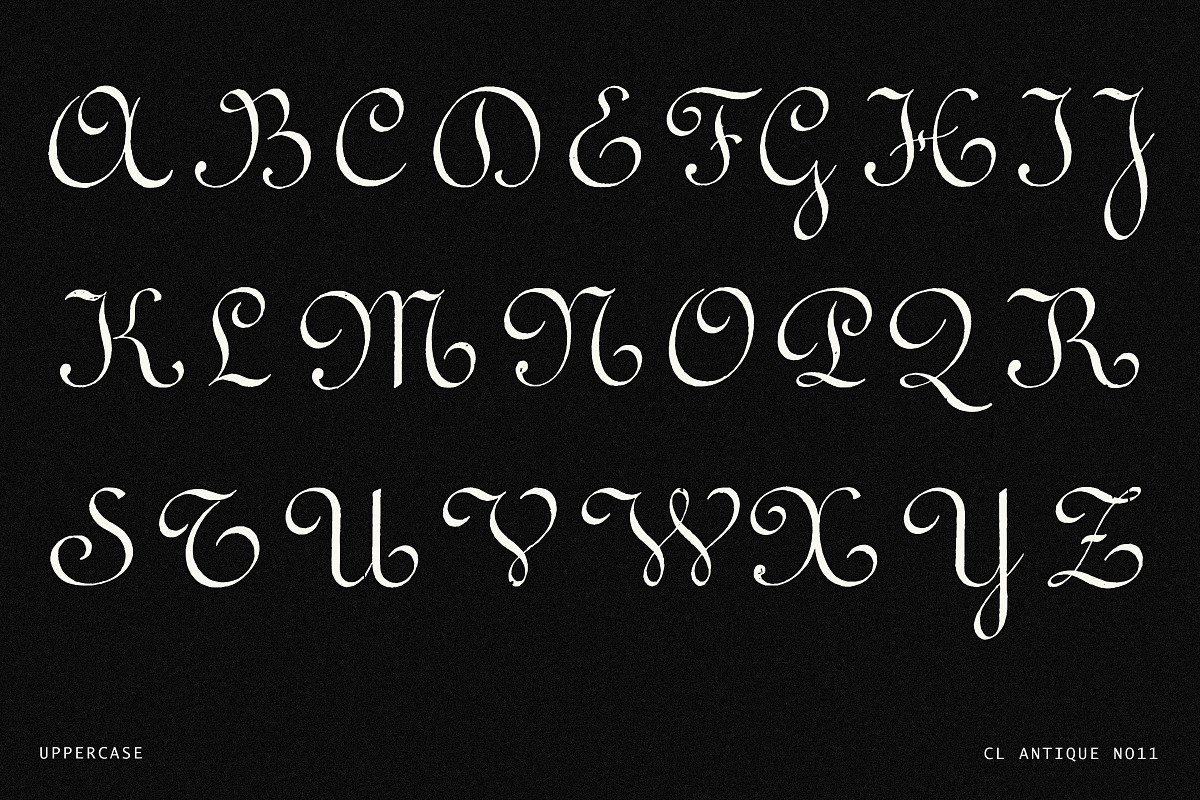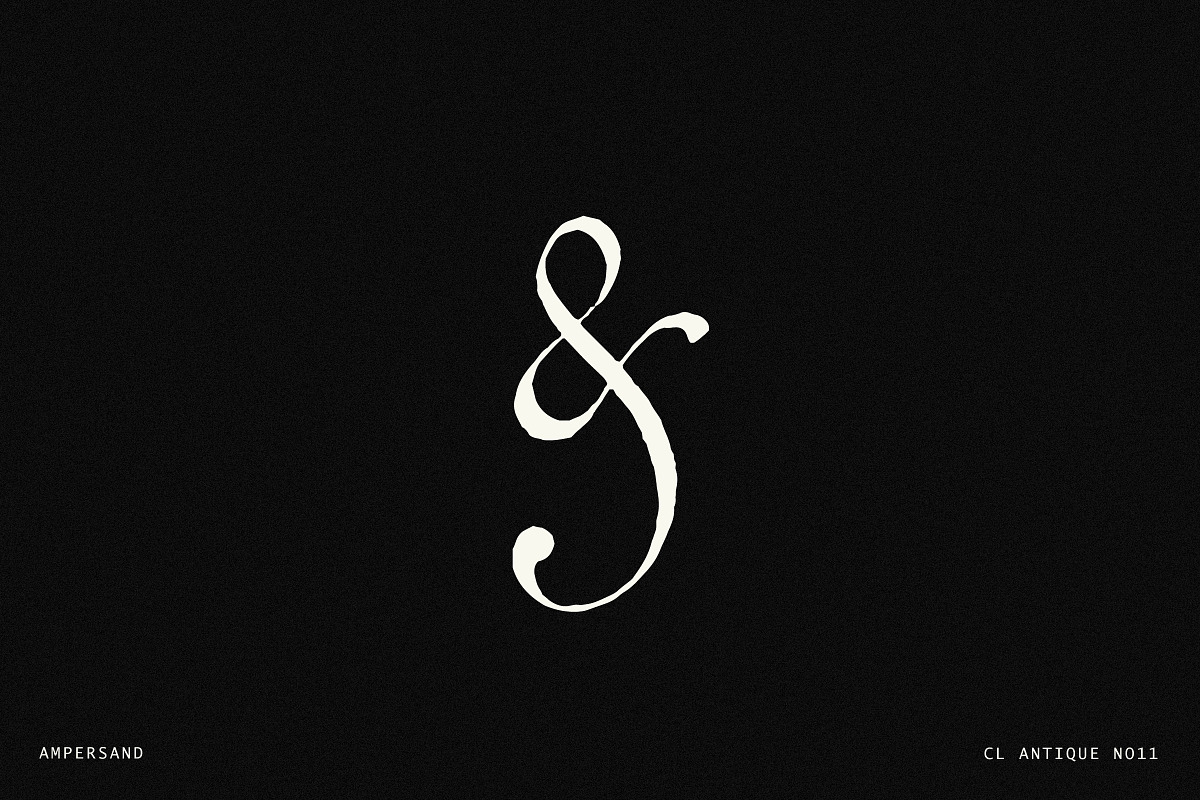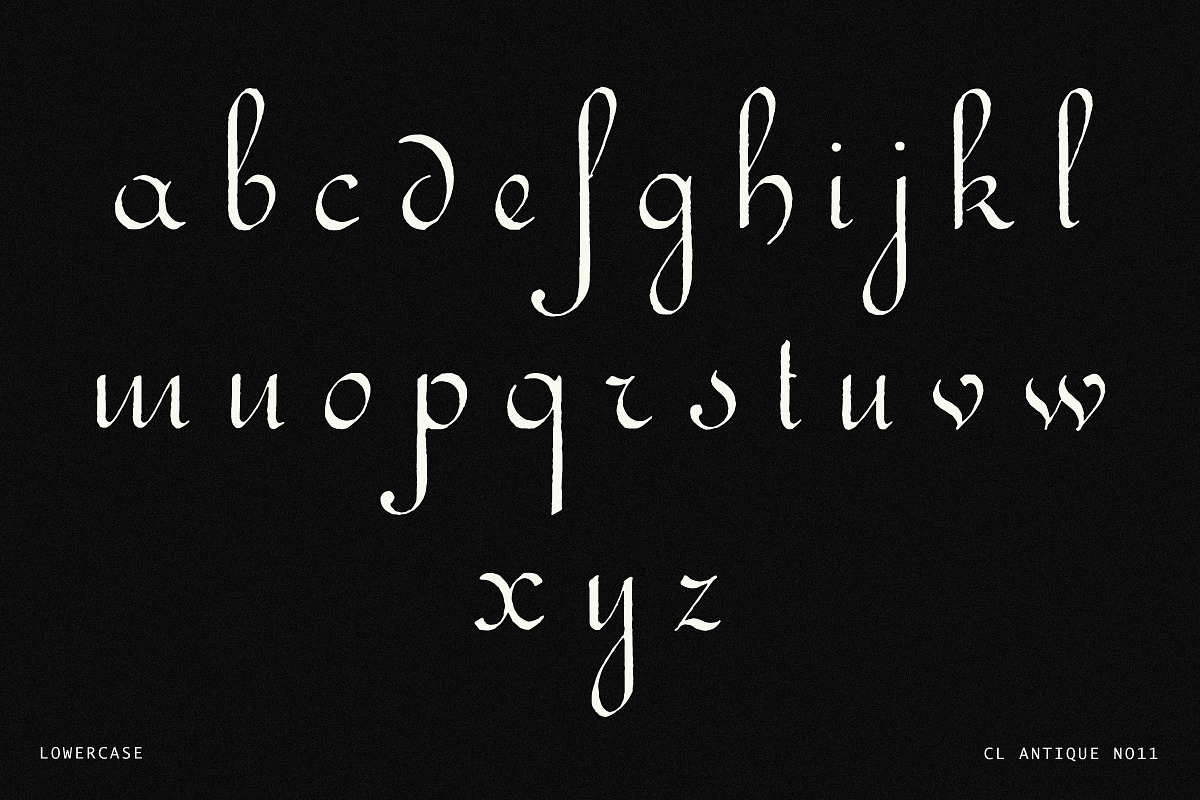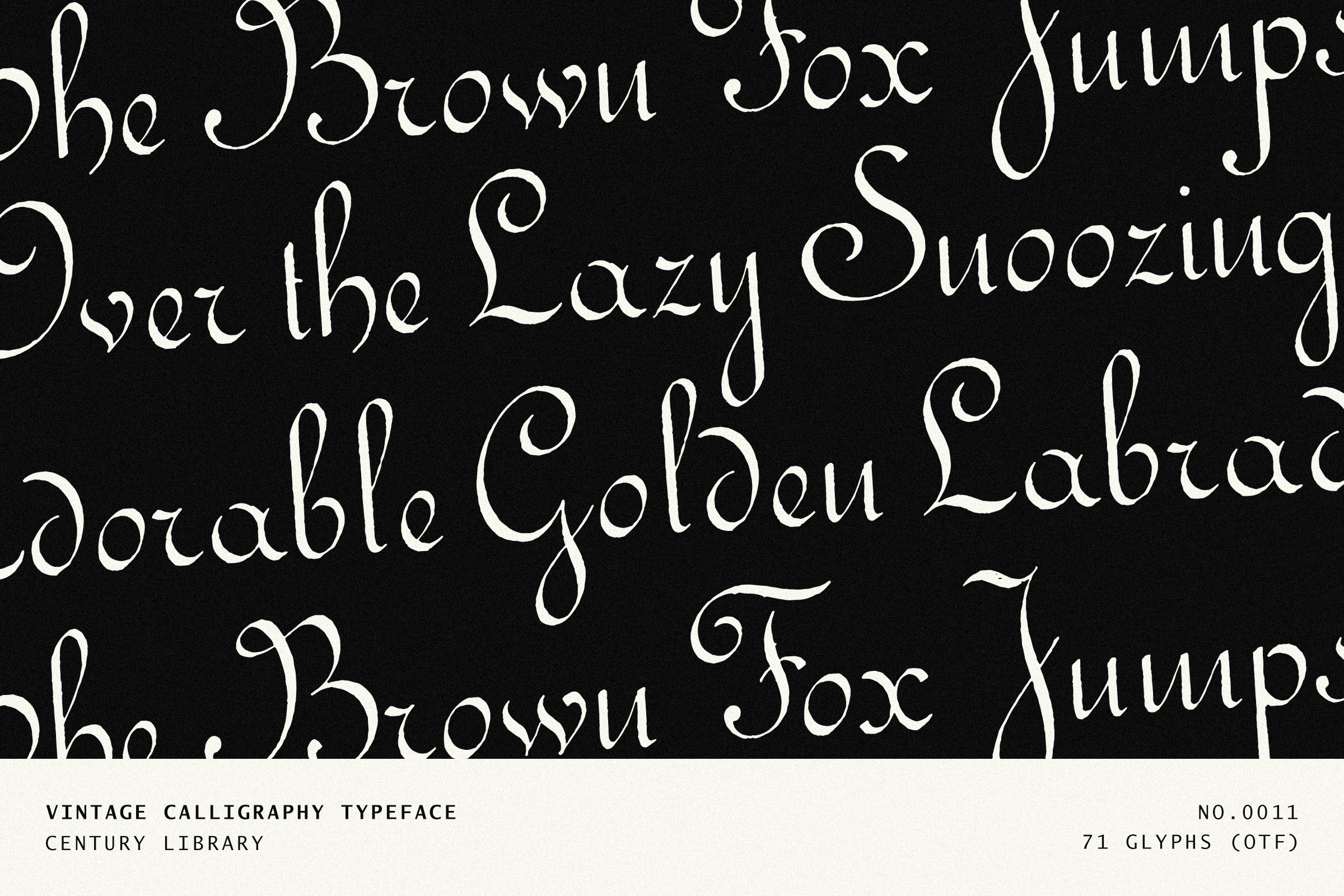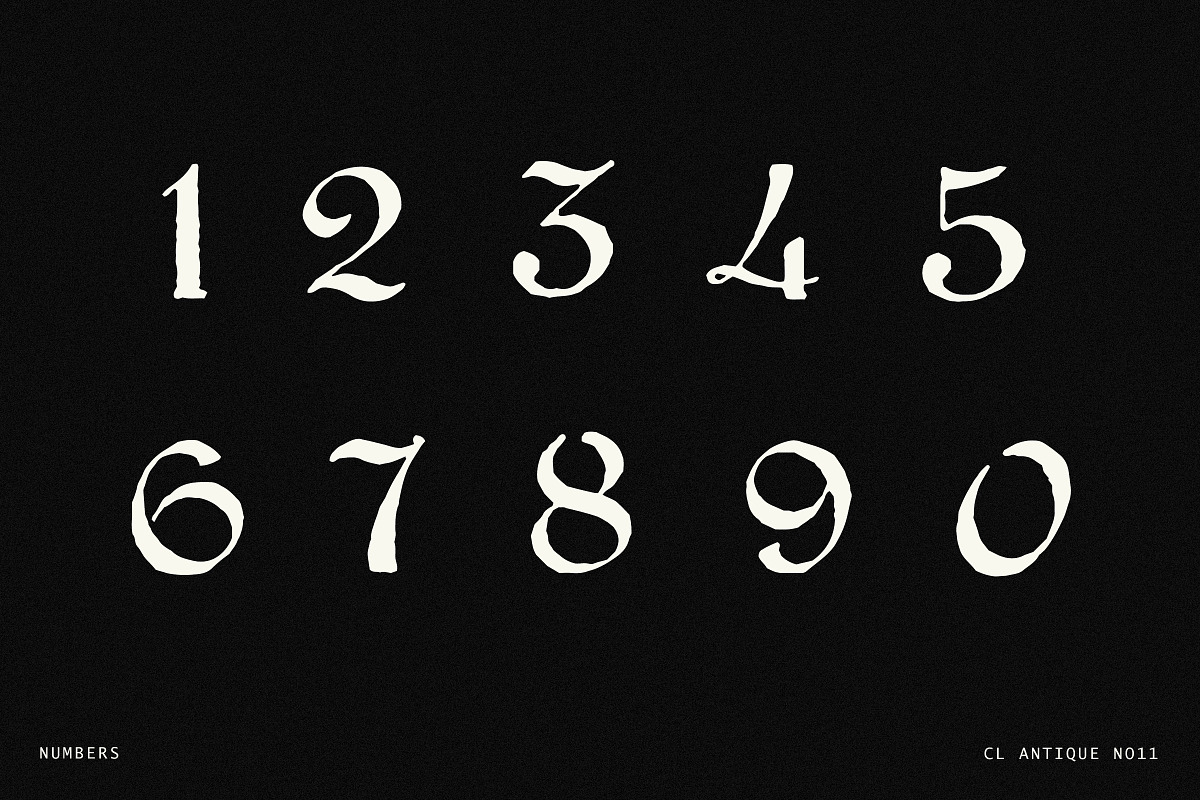
Elegant Vintage Calligraphy Font
Introducing CL Antique No.11 – a graceful vintage calligraphy font lovingly restored from 19th-century specimens.
Part of the Century Library collection, this elegant typeface was carefully scanned, cleaned, and transformed into a working font – preserving the flowing curves, delicate flourishes, and natural imperfections that give historic calligraphy its irresistible charm.
This isn’t a modern recreation. Every letter captures the soul of antique script lettering, with authentic variations in stroke weight and texture. The font includes uppercase, lowercase, numbers, and a beautiful ampersand, just as originally crafted.
Perfect for wedding invitations, branding, packaging, editorial design, and any project that needs a genuine touch of old-world elegance.